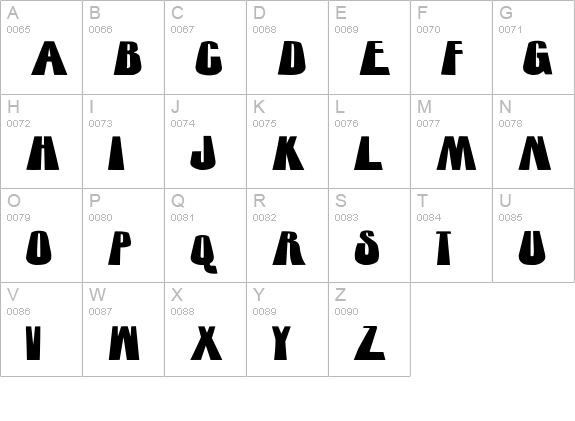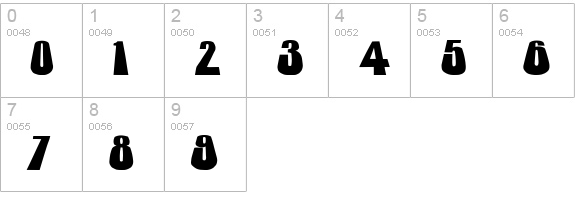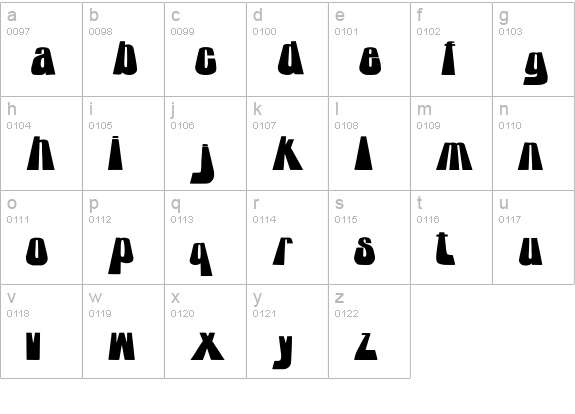
towering Font Details
Introducing the majestic and awe-inspiring Towering Font, a captivating typeface that commands attention and adds a touch of grandeur to any design project. With its tall and elegant letterforms, this font stands tall among others, exuding strength and sophistication. Designed with meticulous attention to detail, Towering Font offers a harmonious balance between boldness and grace. Its clean lines and carefully crafted curves make it versatile for a wide range of design applications, from eye-catching headlines to elegant logos and branding materials. What sets Towering Font apart is not only its striking appearance but also its accessibility. It is freely available to download at FontsMarket.com, allowing designers, creatives, and typographic enthusiasts to effortlessly add this gem to their font arsenal. The freedom to access such a remarkable font opens up endless possibilities for creating stunning visual experiences. Whether used in print or digital projects, Towering Font leaves a lasting impression. Its commanding presence and timeless appeal make it the perfect choice for projects that require a touch of sophistication and grandeur. Elevate your designs to new heights with Towering Font and make a lasting impact on your audience.